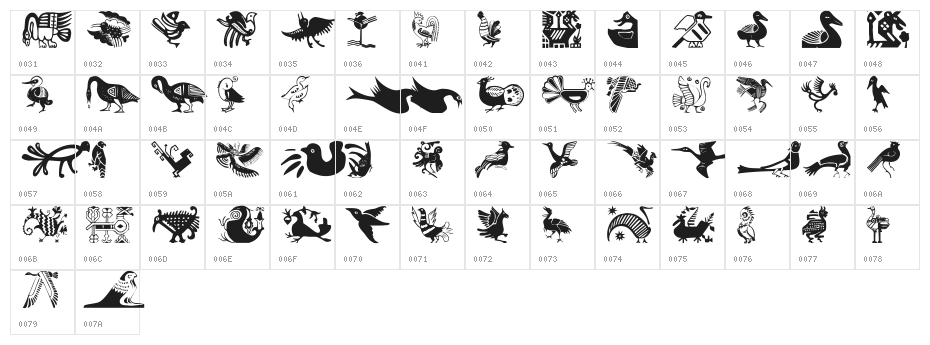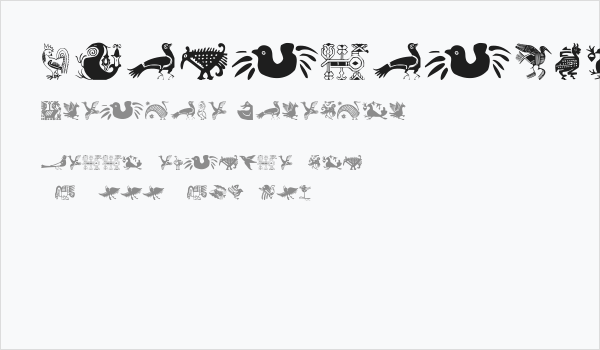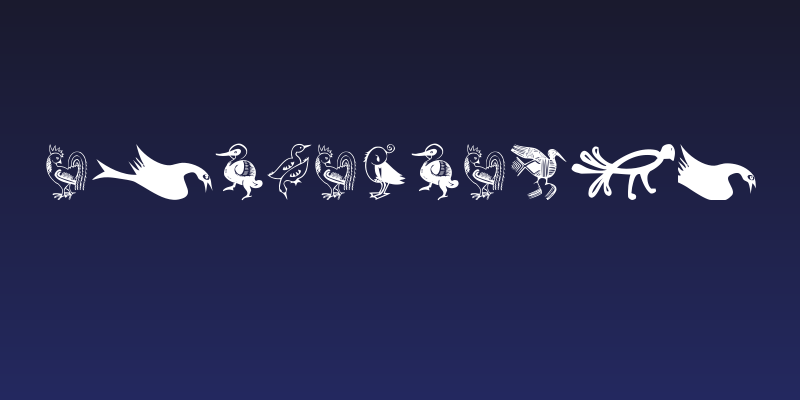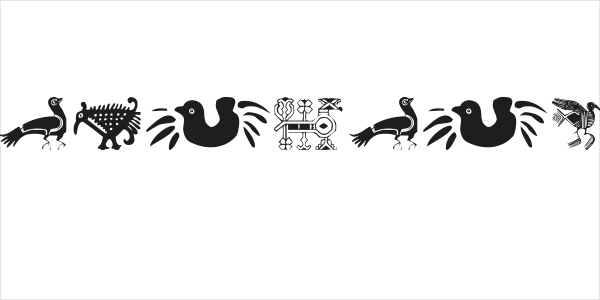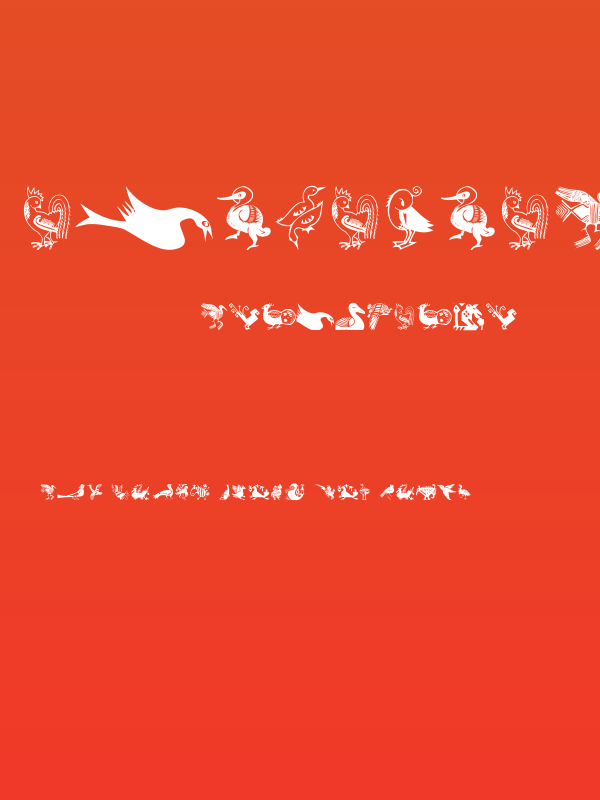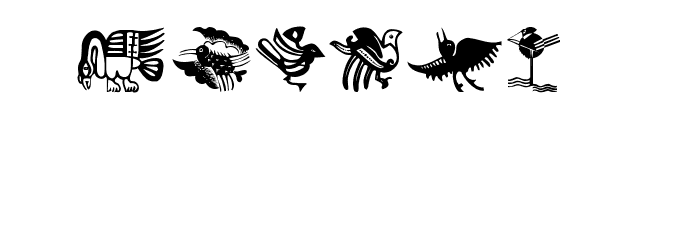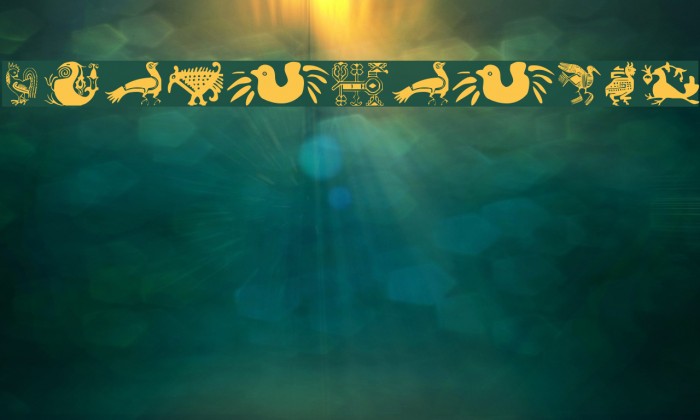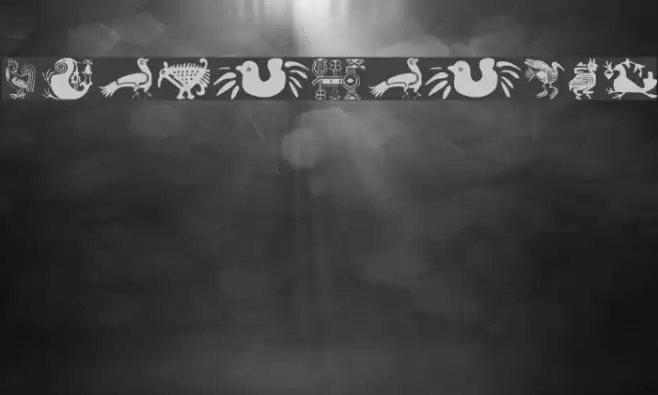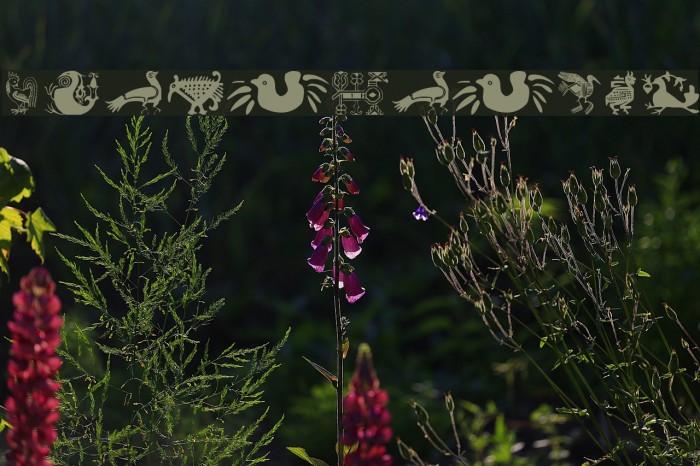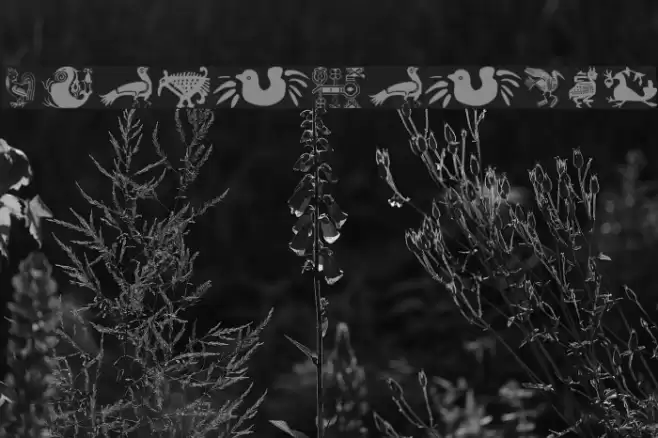
AnimaliaTwo Font
AnimaliaTwo Description
This is a decorative font that features a series of stylized animal illustrations. Each character is represented by a unique animal design, showcasing a variety of creatures with intricate patterns and bold lines. The designs are highly detailed, with a playful and artistic flair that makes each character stand out. The font is visually striking, with a strong emphasis on creativity and imagination, making it ideal for projects that require a whimsical or artistic touch. The characters are evenly spaced, ensuring readability while maintaining their decorative appeal.
| Use Case | Logos, Posters, Artistic Projects |
| Proposed Projects | Ideal for children's books, educational materials, creative posters, and artistic branding projects. |